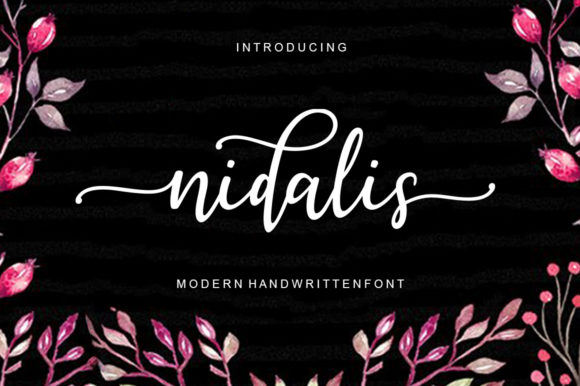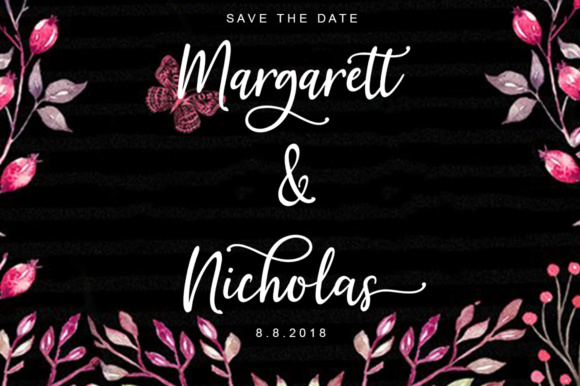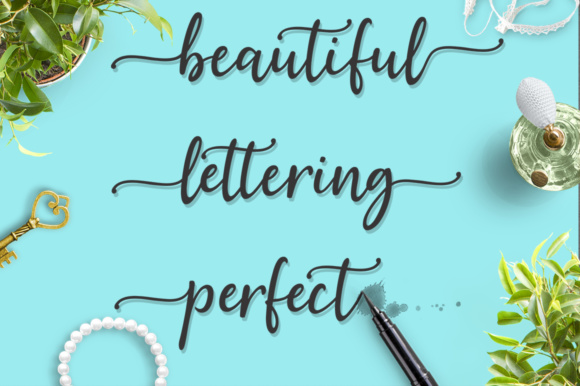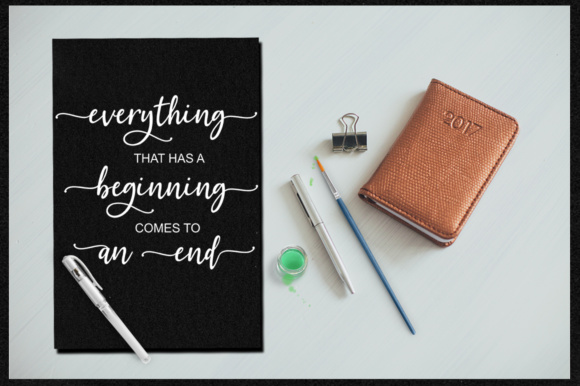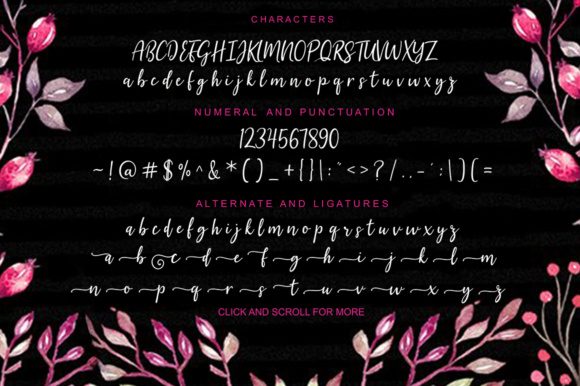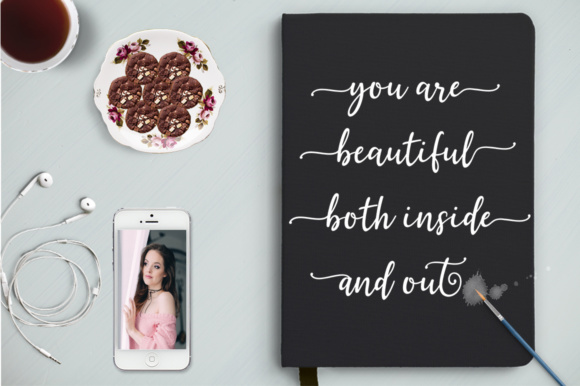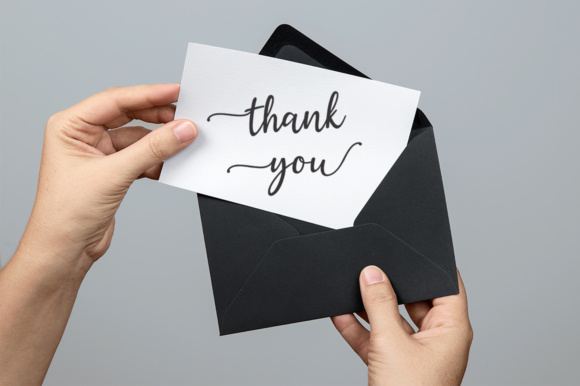
Nidalis Font
Nidalis is a Script font that has a varied base line, fine lines, and a classic, elegant and modern touch. Nidalis can be used for various purposes.